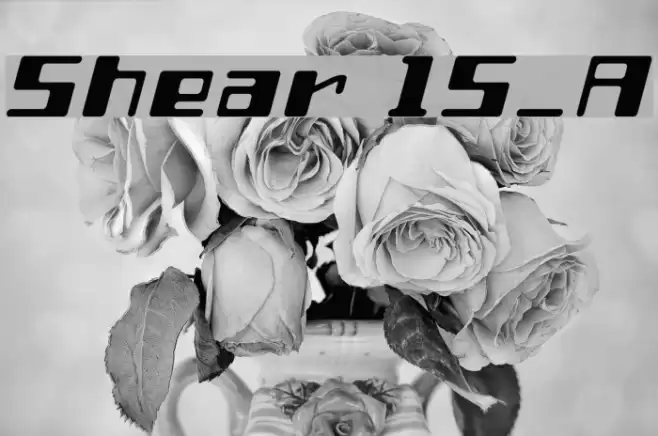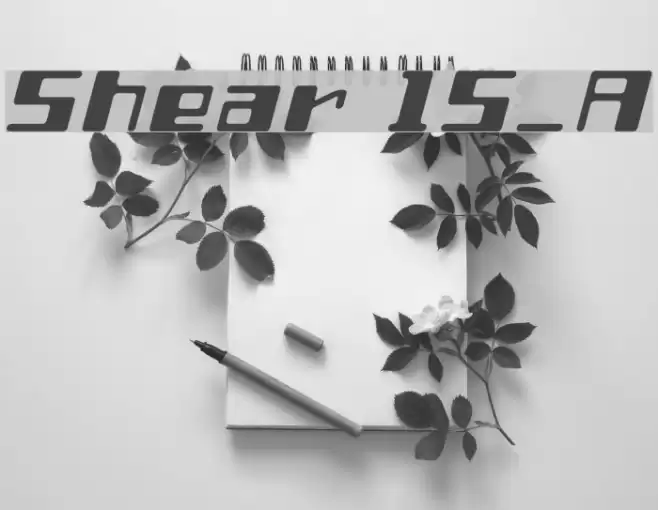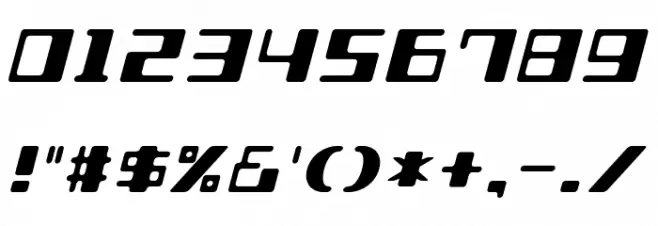
Shear 15_A Font
Shear 15_A Description
This font features a dynamic and modern design with a distinct slant, giving it a sense of motion and energy. The characters are bold and slightly condensed, with a uniform stroke width that maintains readability while adding a sleek, futuristic appeal. The uppercase letters are angular and geometric, while the lowercase letters complement them with a more rounded and approachable style. Numbers and special characters follow the same design principles, ensuring consistency throughout. This font's unique style makes it suitable for projects that require a contemporary and energetic look.
A modern, slanted font with bold, geometric characters from Uncategorized fonts.
- Proposed Projects: Ideal for sports branding, tech-related designs, and dynamic advertising campaigns.